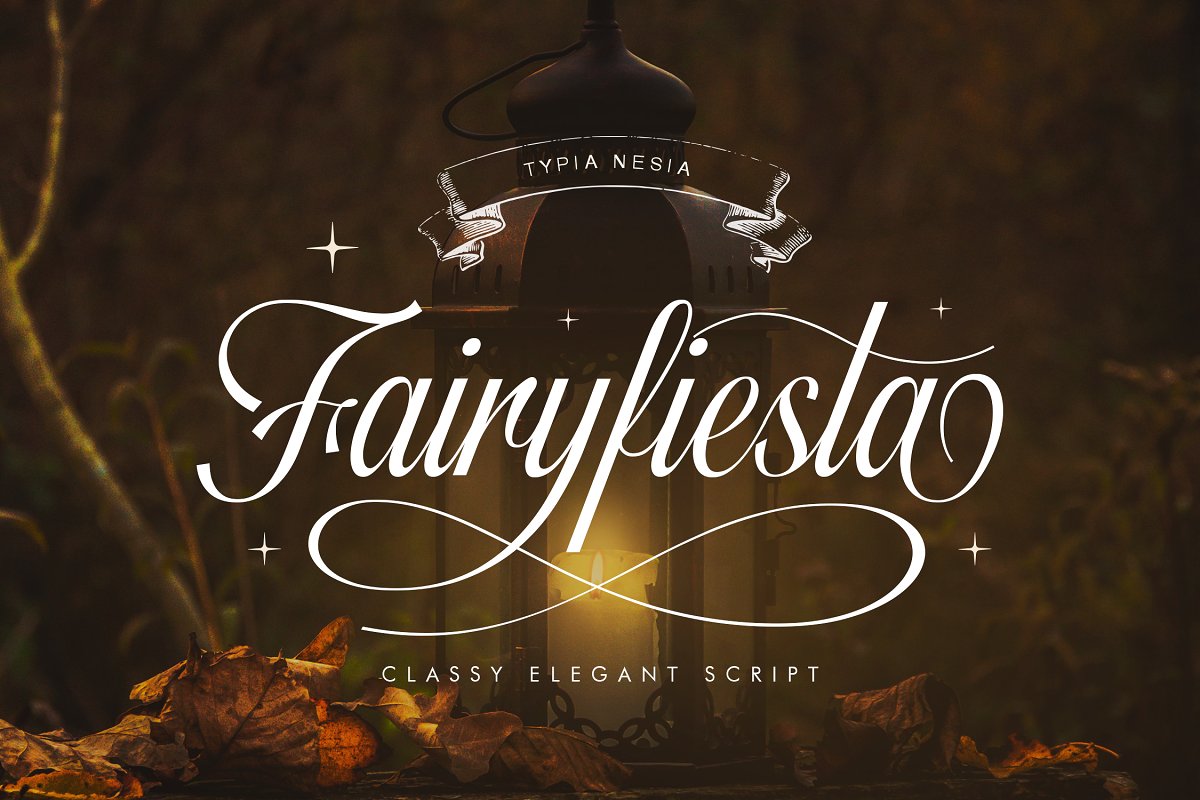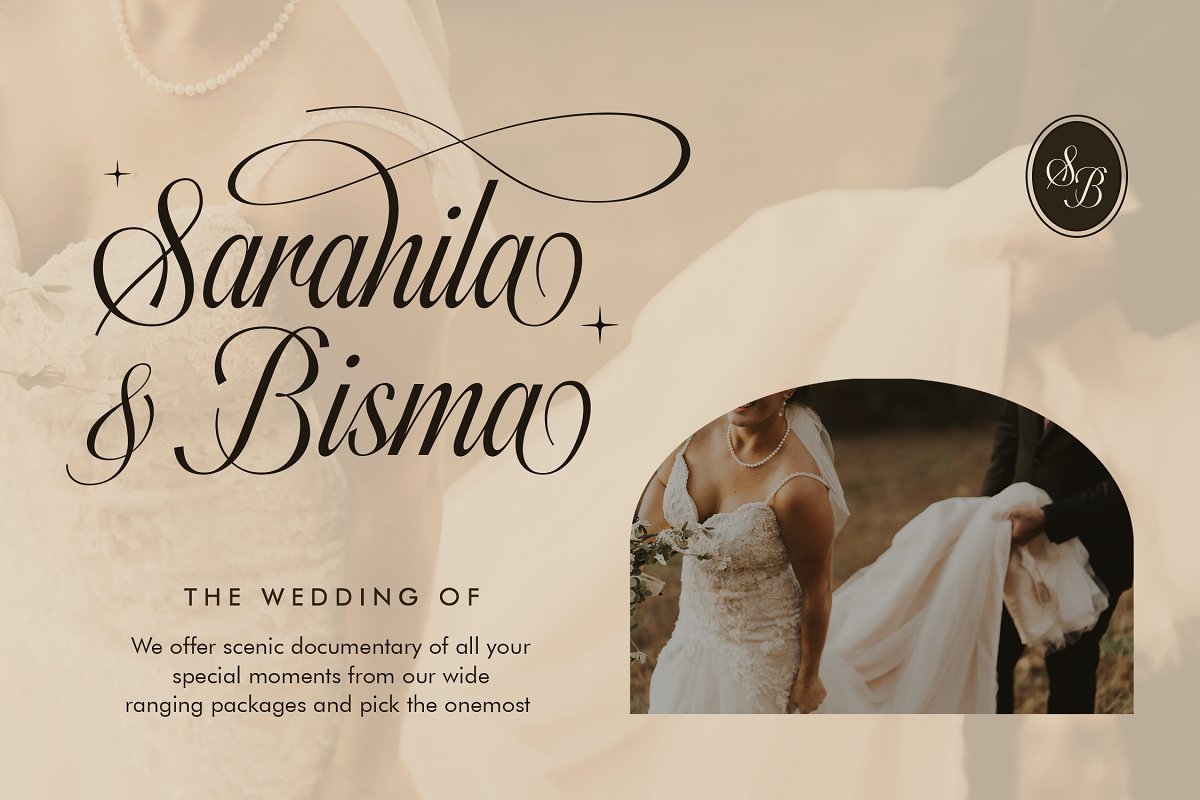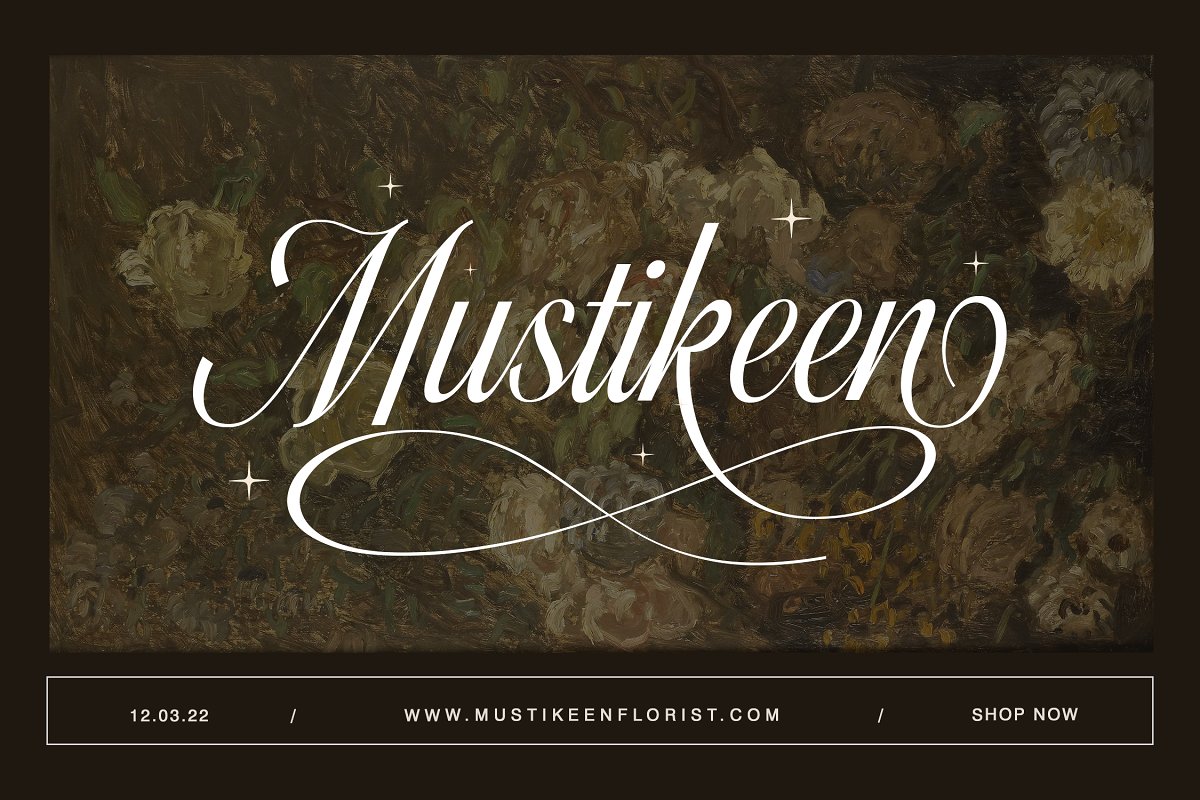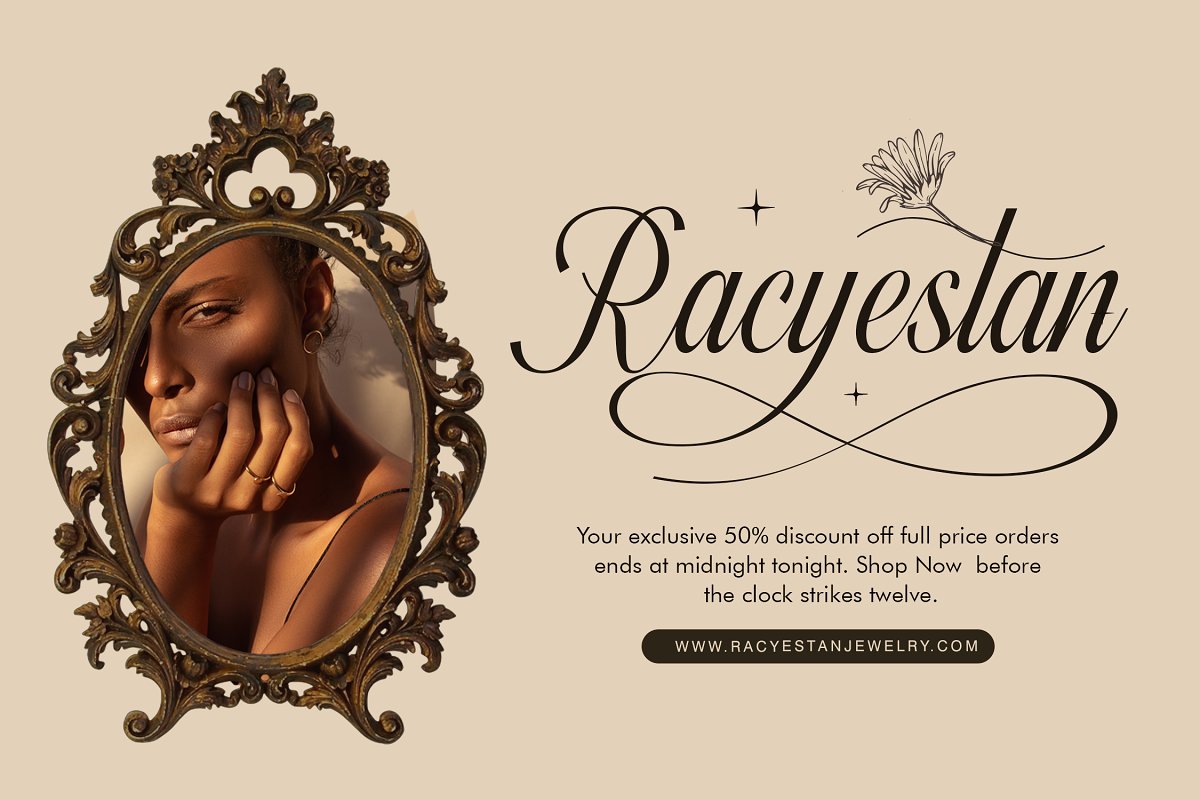
About the Fairyfiesta
Fairyfiesta – Classic Elegant Copperplate Calligraphy Script Font – Beauty Classic Luxury Royal FontFairyfiesta font comes with glyph variations such as Ligature, Alternate and Swash, You can combine it to make a perfect typography design, It is perfect for your up coming projects, Such as luxury logo and branding, classy editorial design, woman magazine, cosmetic brand, fashion promotional, art gallery branding, museum, historical of architectural, boutique branding, stationery design, blog design, modern advertising design, card invitation, art quote, home decor, book/cover title, special events and any more